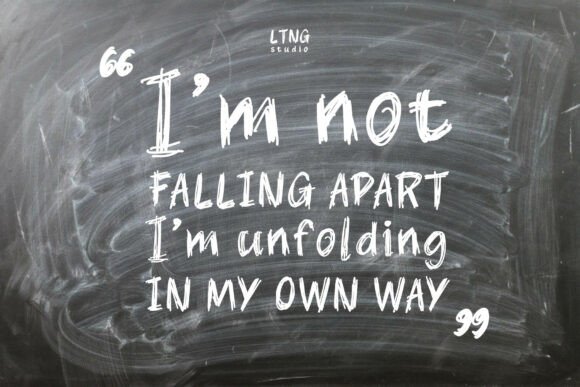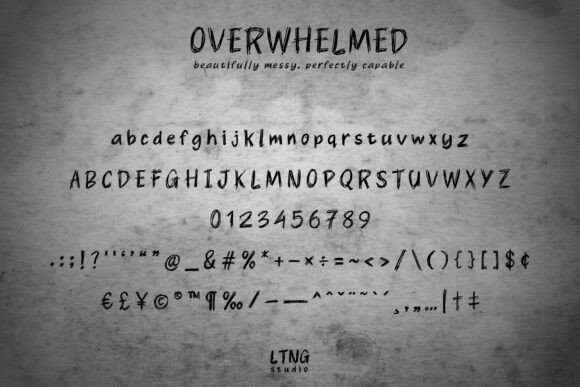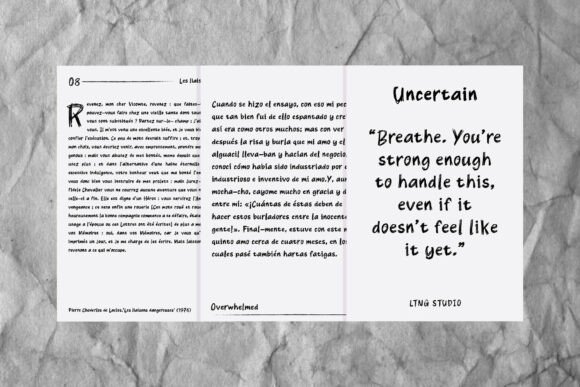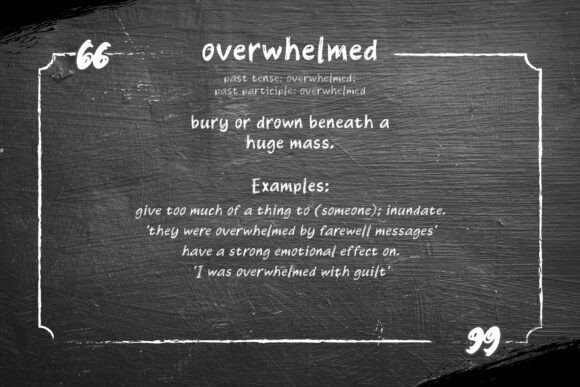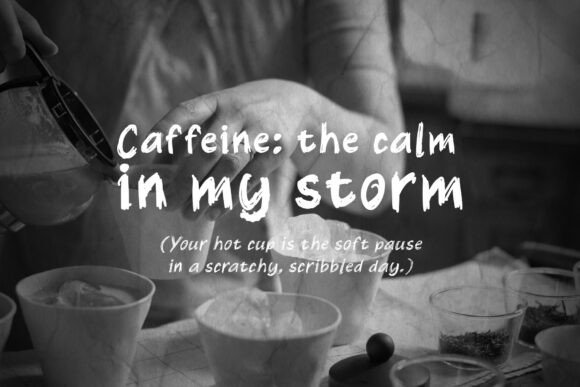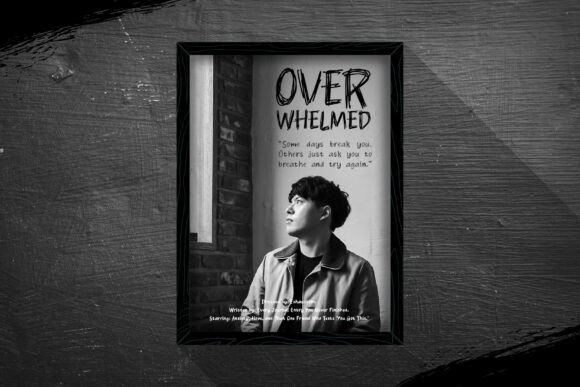
Introduction to Overwhelmed Font
Have you ever found yourself in the midst of a creative project, staring at a blank page, and suddenly, a burst of inspiration hits? That’s exactly what happened to us when we stumbled upon the Overwhelmed Font. Its unique blend of scruffy sketches and chaotic strokes resonated deeply, echoing the raw emotions we’ve all experienced at some point. As designers, we’re always on the lookout for high-quality design resources that speak to our audience, and the Overwhelmed Font is a game-changer.
With its transparent background and versatile style, this font is the perfect addition to any creative project. Whether you’re working on a mental wellbeing campaign, a fanzine, or a personal journal, the Overwhelmed Font will give your design a sense of authenticity and heart. And the best part? It’s available for free download, making it an accessible design resource for designers of all levels.
Key Features of Overwhelmed Font
- Unique, hand-drawn design perfect for creative projects that require a high-quality, emotive font.
- Features a transparent background, making it easy to use on any color or texture.
- Includes a wide range of characters, including uppercase and lowercase letters, numbers, and punctuation marks, making it a versatile design resource.
- Designed at a high resolution (300 DPI) for crisp and clear rendering, suitable for both digital and print applications.
- Available in multiple font sizes and styles, allowing designers to experiment with different looks and feels for their creative project.
Honest Review: Overwhelmed Font
As a designer, I’ve had the chance to work with many fonts, but the Overwhelmed Font has definitely left a mark. I was initially drawn to its unique, distressed aesthetic, which I thought would be perfect for a creative project.
What works well: ✨ The Overwhelmed Font’s versatility is one of its strongest points. It’s not just limited to a single style or use case – it can be used for headings, body text, or even as a design element in its own right. The font also comes with a transparent background, making it easy to overlay on top of images or other design elements.
- High-quality design: The Overwhelmed Font is a well-designed resource that looks great at various sizes and resolutions.
Limitations: ⚠️ While the Overwhelmed Font is generally a great resource, it’s not without its limitations. The font can be a bit overwhelming (no pun intended) when used in large quantities, and some users may find the distressed aesthetic to be too “trendy” or gimmicky.
Overall impression: I’m a fan of the Overwhelmed Font, and I think it’s a great addition to any designer’s toolkit. While it may not be perfect, its unique aesthetic and high-quality design make it a valuable resource for any creative project.
The Overwhelmed Font is commonly used in creative projects such as posters, flyers, and social media graphics. It can also be used in presentations and documents to create a visually appealing title or heading.